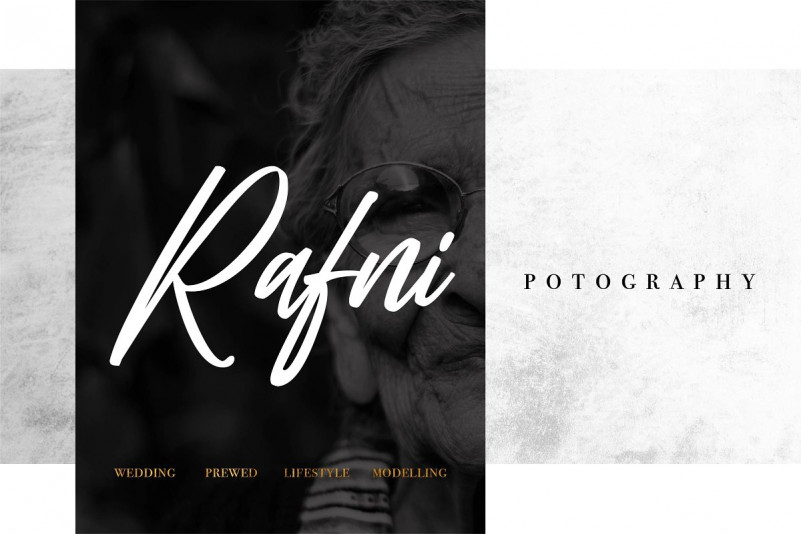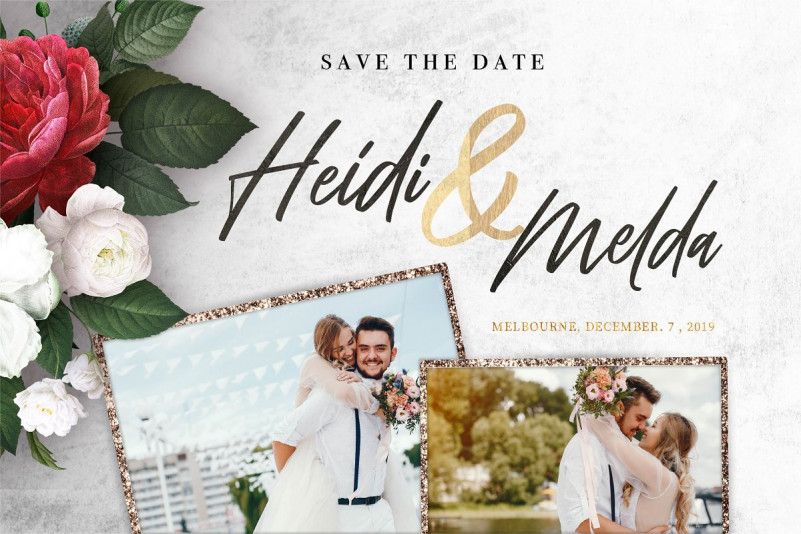
Malista Font
Malista signature Script is a beautiful signature font, This Font will look gorgeous on all your designs, invitation, book, branding materials, logo’s, t-shirt, poster and all project design other.